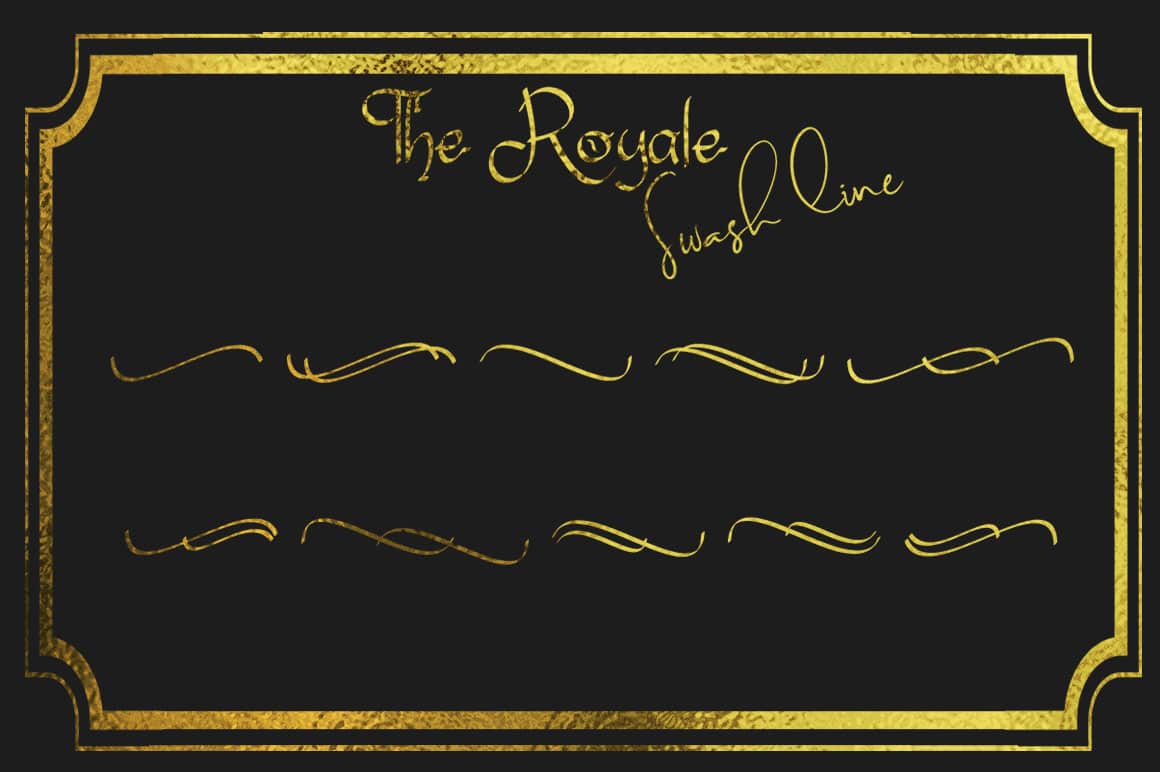
The Royale is an Elegant Font by DM Letter. It will give you a classical fairy tales and magical touch.
Comes with some alternates lowercase, UPPERCASE, initial and final form, ligatures, and also we added some simple elegant swashes type to beautify your art designs.
The Royale is a great choice for some various designs, such as branding, logos, signs, quotes, book cover, album cover, etc.